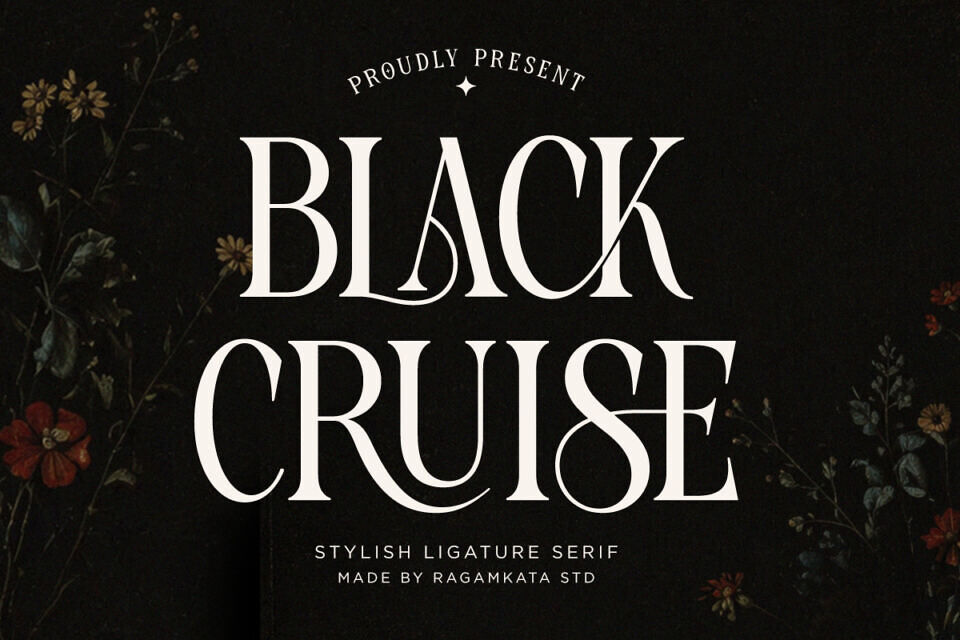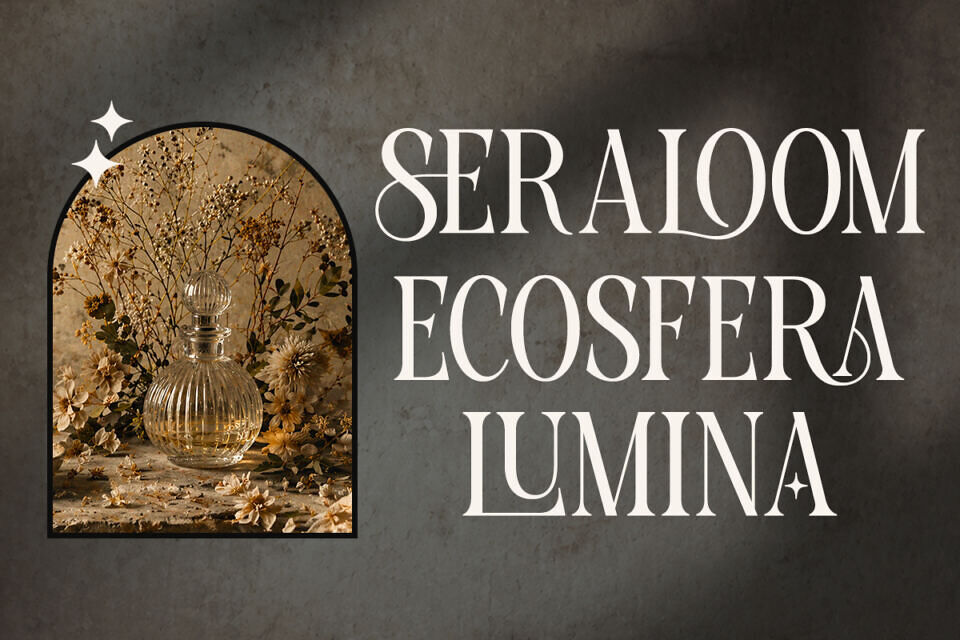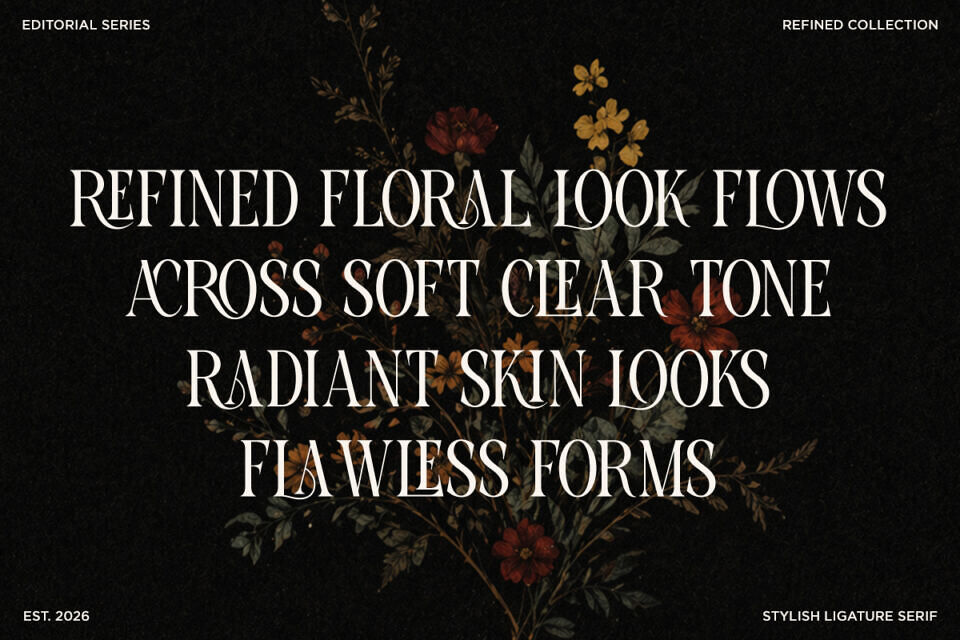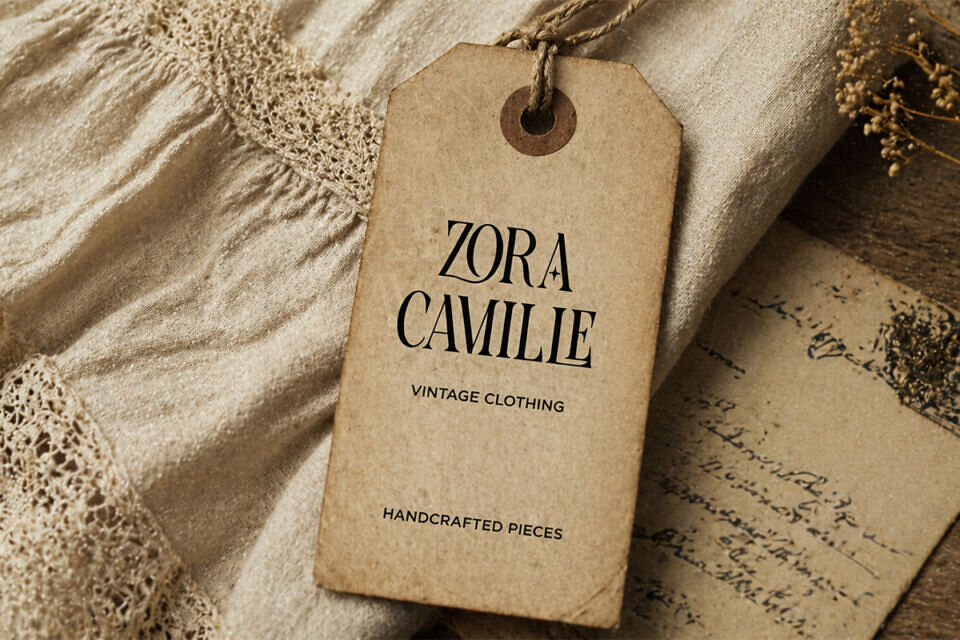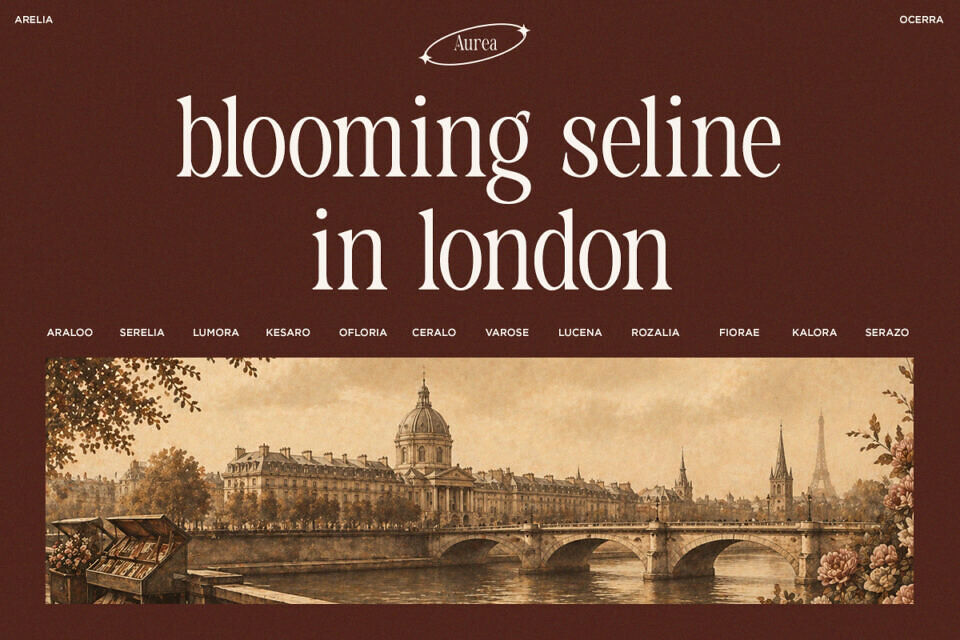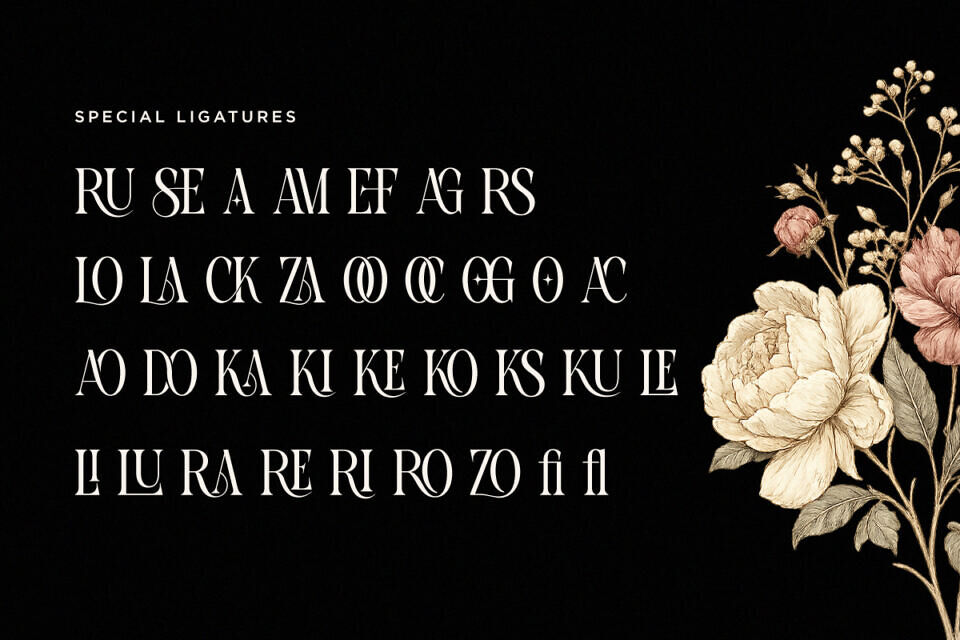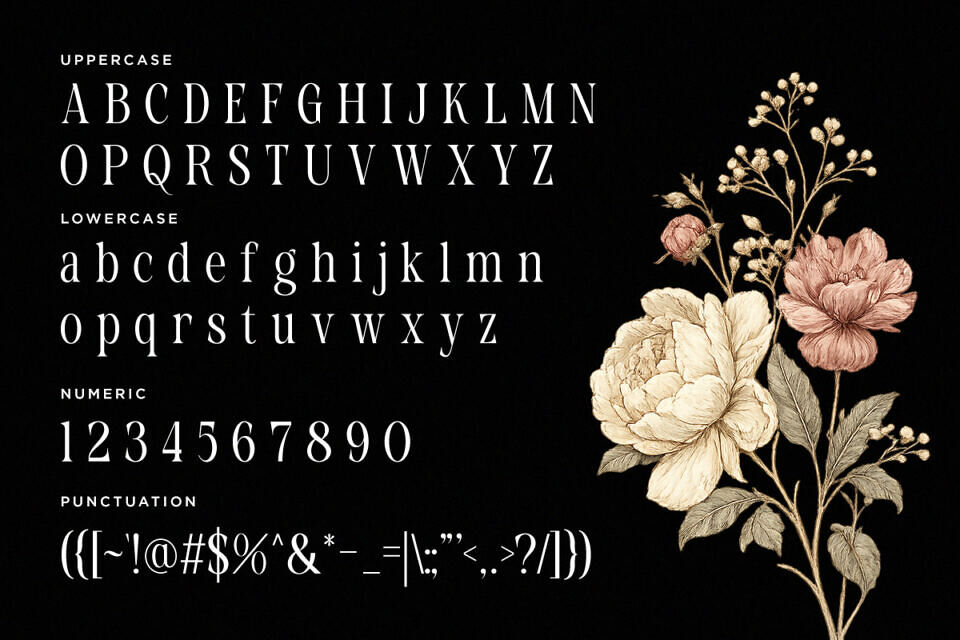
Black Cruise Font
Black Cruise is a stylish ligature serif font crafted to bring elegance, luxury, and cinematic beauty into every design project. With its graceful curves, artistic ligatures, and high-contrast serif details, this typeface delivers a sophisticated visual identity perfect for modern branding and premium typography needs.
The font combines timeless classic serif aesthetics with contemporary editorial styling, making it stand out beautifully in both digital and print applications. Whether you are building a premium fashion brand, creating cinematic poster titles, or designing elegant packaging concepts, Black Cruise offers the versatility and sophistication needed to create stunning typography.